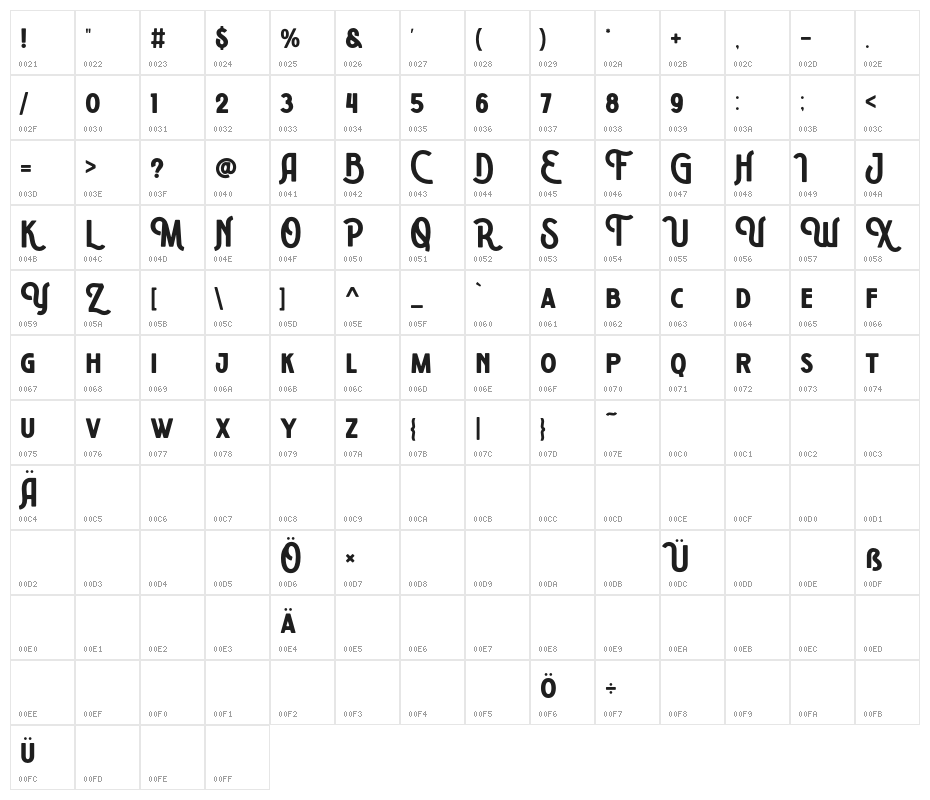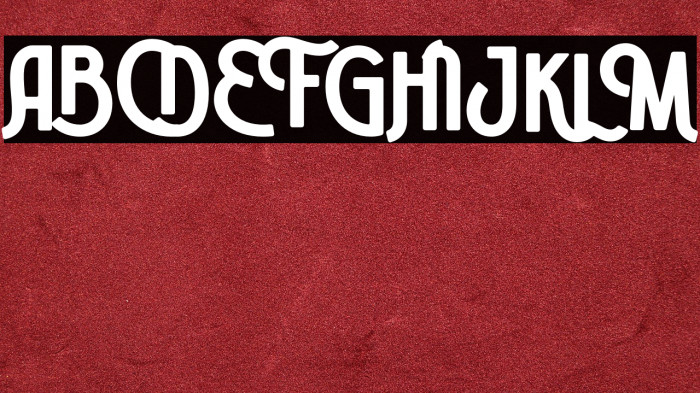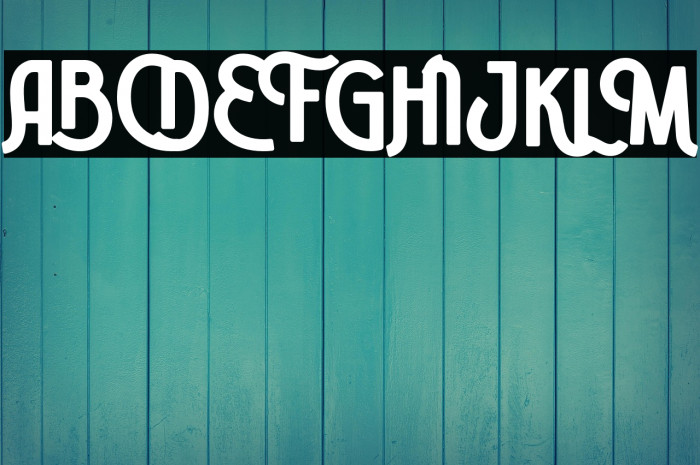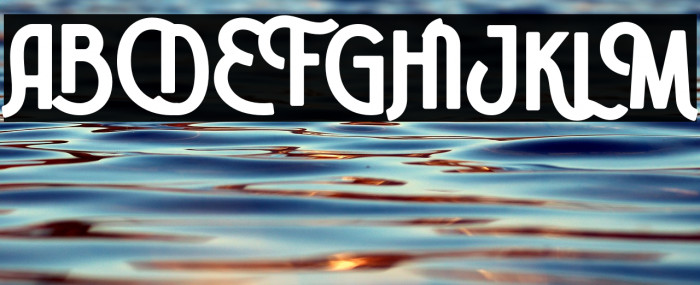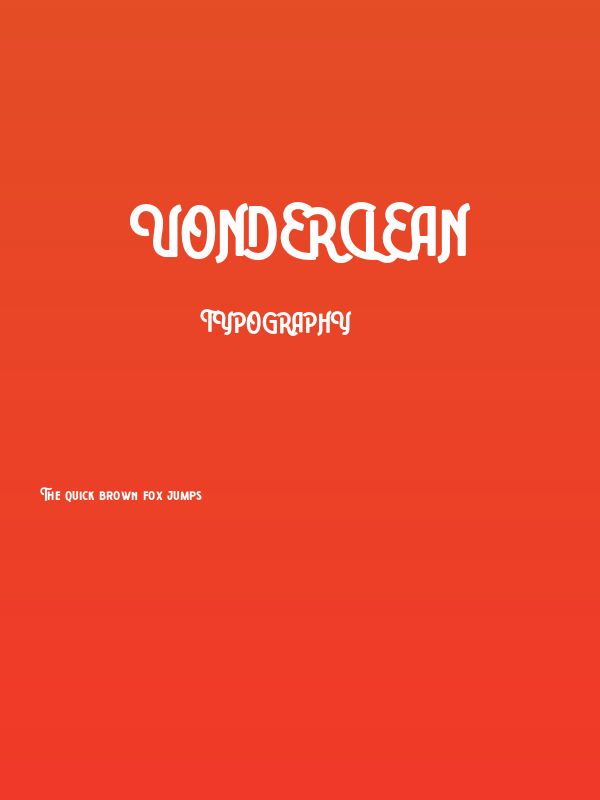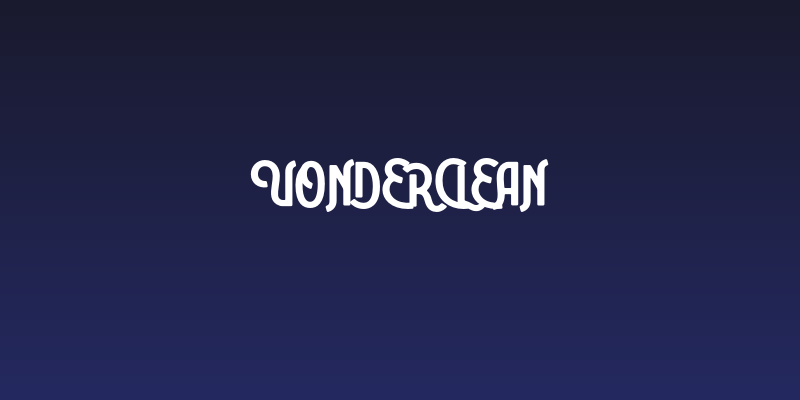
VonderClean Font
VonderClean Description
This font features a bold and playful style with a mix of decorative and straightforward elements. The uppercase letters in the first row exhibit a unique, whimsical flair with curved and exaggerated strokes, adding a touch of creativity and fun. The second set of uppercase letters is more straightforward, with a strong, bold presence that commands attention. The numerals and special characters maintain this boldness, ensuring consistency across all elements. The font's design is versatile, making it suitable for a variety of creative projects that require a touch of personality and boldness.
| Overall Style | Playful, Creative |
| Proposed Projects | Ideal for branding, posters, headlines, and any project that requires a bold, creative touch. |